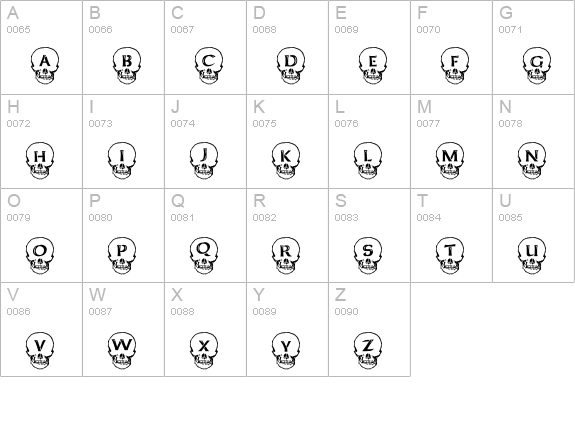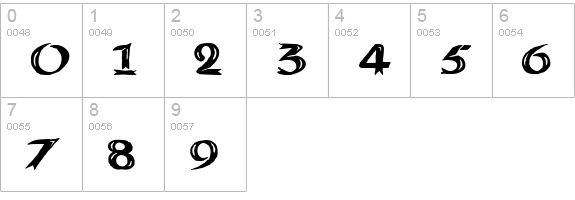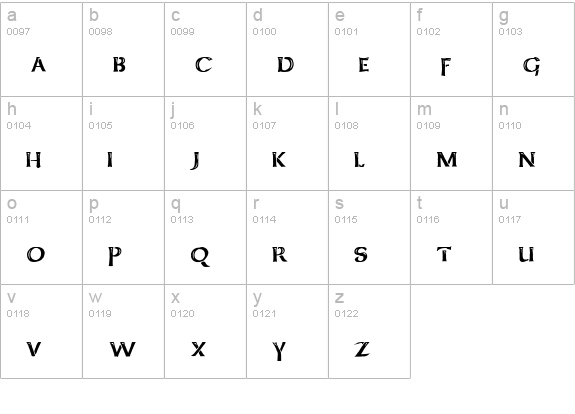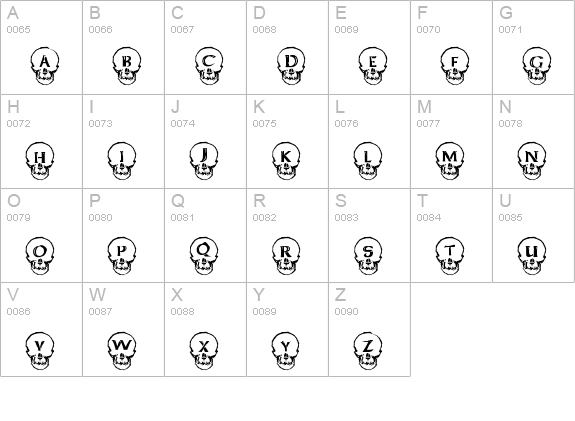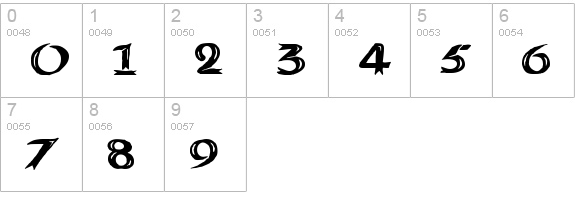
Deathhead KeltCaps Font Details
The Deathhead KeltCaps font is a captivating and unique display font that exudes an air of mystery and intrigue. With its intricate and ornate design, this font is perfect for adding a touch of gothic elegance to your projects. The elaborate details of the letterforms make it a standout choice for headlines, logos, and other design elements that require a bold statement. What sets Deathhead KeltCaps font apart is its striking combination of sharp angles and delicate curves, creating a visually appealing contrast that draws the eye. The intricate patterns and intricate details of the font give it a timeless and sophisticated look that is sure to impress. Best of all, Deathhead KeltCaps font is available for free download at FontsMarket.com. Whether you're a designer looking to add a touch of flair to your creations or simply a font enthusiast seeking something unique, this font is sure to delight with its intricate design and striking aesthetic. Download Deathhead KeltCaps font today and elevate your designs with its captivating style.